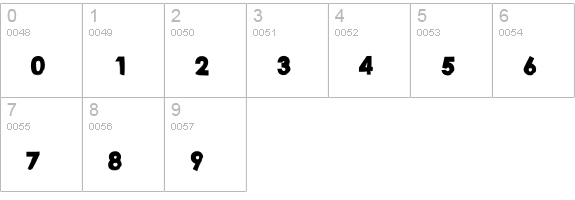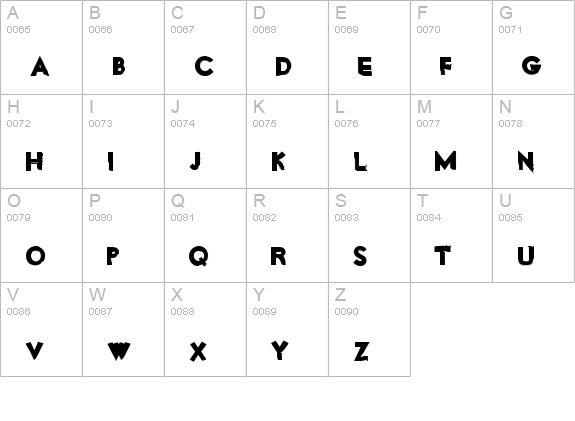
Motor Oil Font Details
Motor Oil font is a bold and rugged typeface that exudes strength and power. Inspired by vintage automobile lettering, this font features strong, angular lines and a sense of mechanical precision. Its industrial aesthetic makes it perfect for projects that require a tough and no-nonsense look. What sets Motor Oil font apart is that it is not only visually striking, but also completely free to download at FontsMarket.com. Whether you're working on a design project that calls for a touch of grit or want to add a touch of vintage charm to your work, Motor Oil font is a versatile choice that won't cost you a penny. Download it today and add a touch of rugged elegance to your next project.